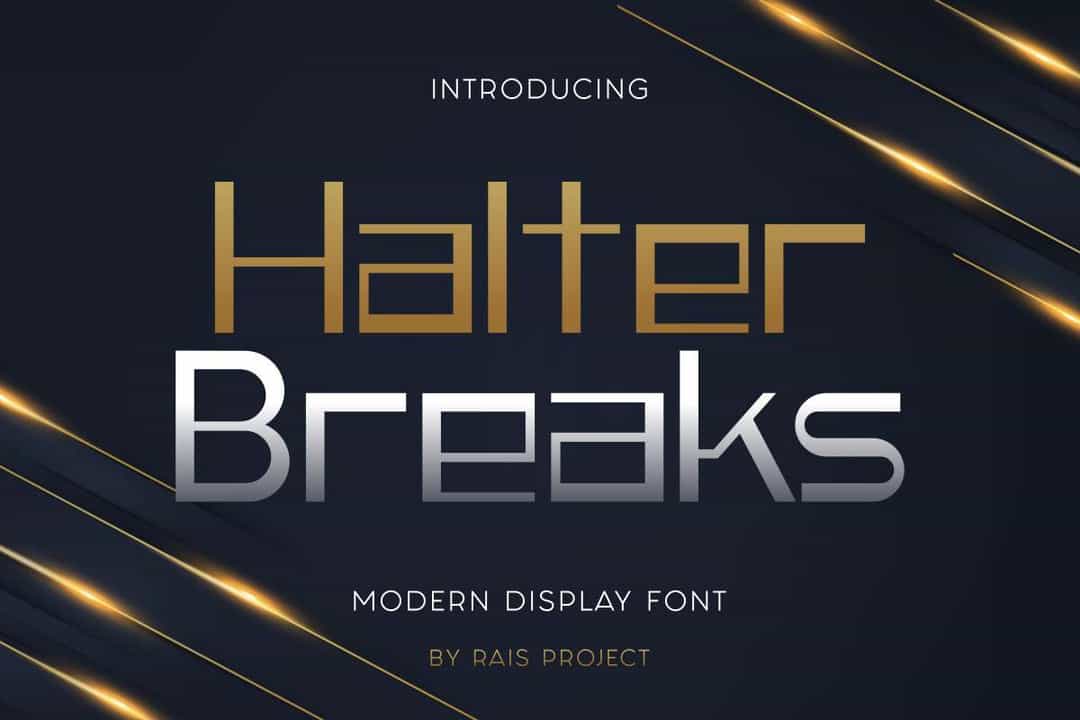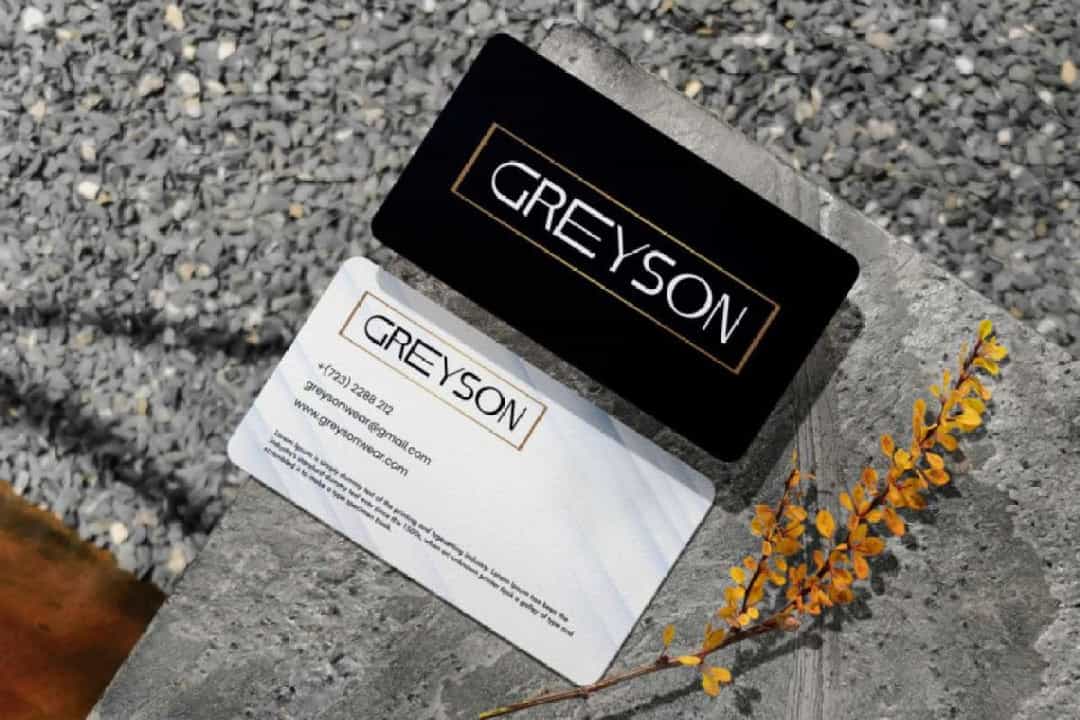
Discover Halter Breaks Font, part of the Sans Serif Display Decorative collection—a versatile and unique font perfect for adding a personal touch to your projects. Download it for free and enjoy crafting designs with style, from invitations to social media posts. This font is available exclusively for personal use, giving you the freedom to create without limits. Unlock your creativity with Halter Breaks Font today!
Halter Breaks Font is an original non-serif screen Font, featuring bold fonts with long lines and big sizes of fonts. It can be used to enhance designs such as signage, business cards and branding materials, labels, personalized design logos personalized packaging of products posters web pages as well as quotes!